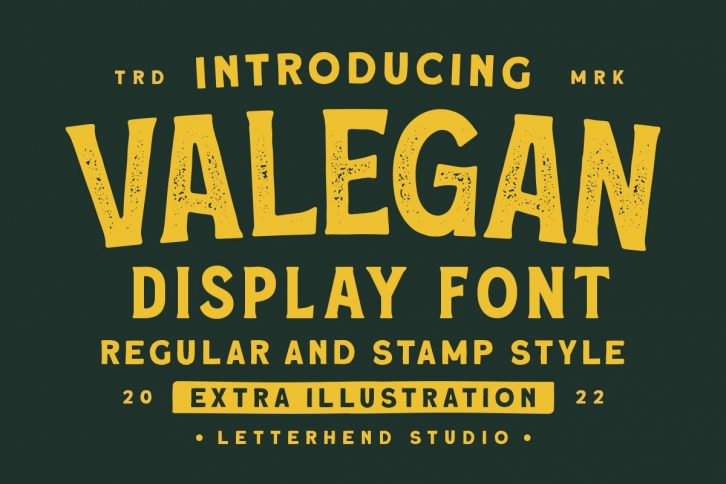
Valegan is a beautiful font that was designed by Letterhend. It's a great choice for designers and creatives who need such a font. It was released on May 23, 2022 and the file size is 2.56 MB. Valegan may give a more youthful, expressive and casual look to your project. It is a very beautiful, refined, elegant, and high-quality font.